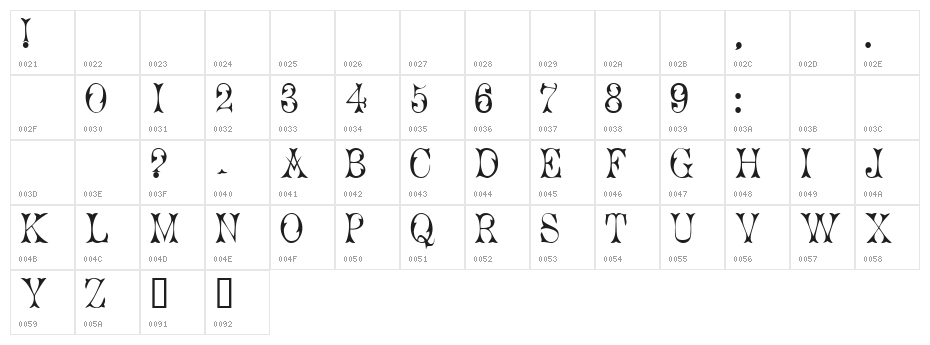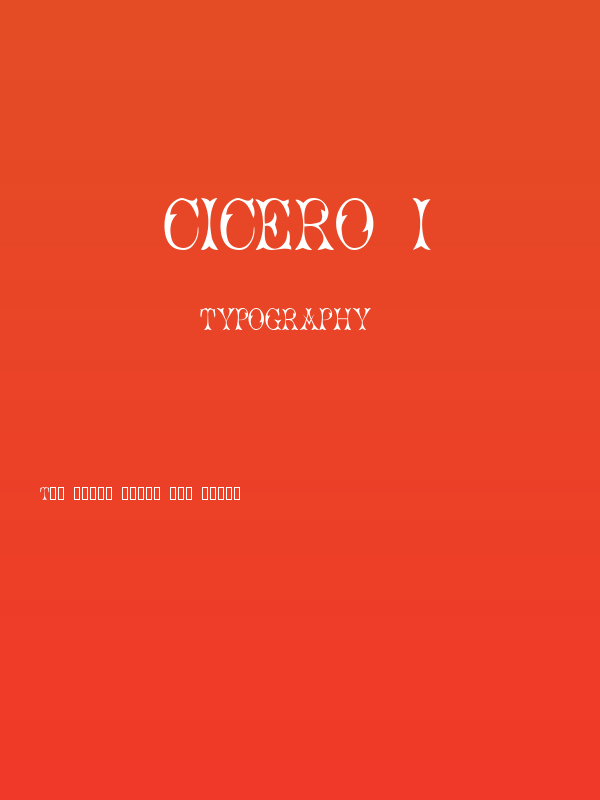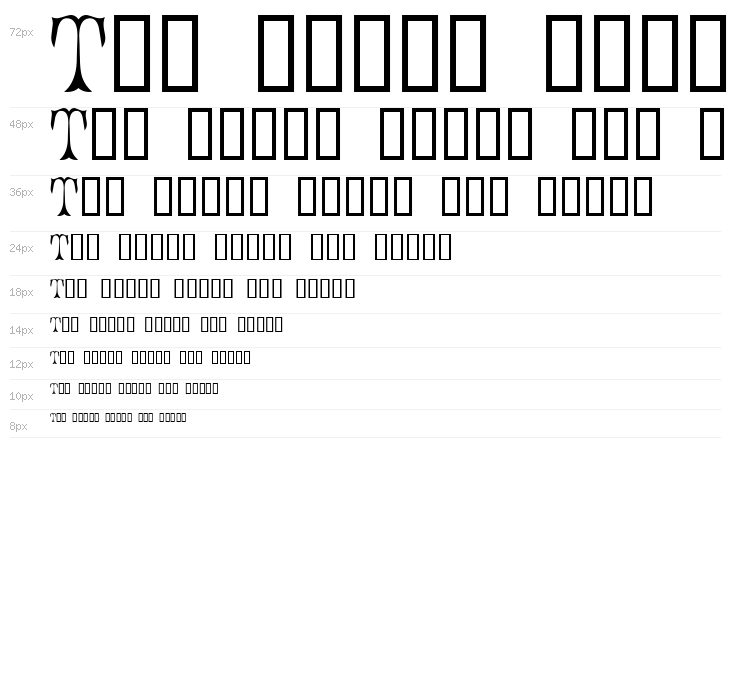
Cicero 1 Font
Cicero 1 Description
This font features a highly decorative and ornate style, characterized by its bold and dramatic serifs that create a striking visual impact. The letters are crafted with intricate details, including sharp angles and pointed edges, giving it a unique and artistic flair. The numerals and special characters follow the same elaborate design, ensuring consistency across all glyphs. This font's distinctiveness makes it stand out, making it suitable for projects that require a touch of elegance and sophistication.
| Proposed Projects | Ideal for use in branding, logos, invitations, and any design project that requires a touch of elegance and artistic flair. |